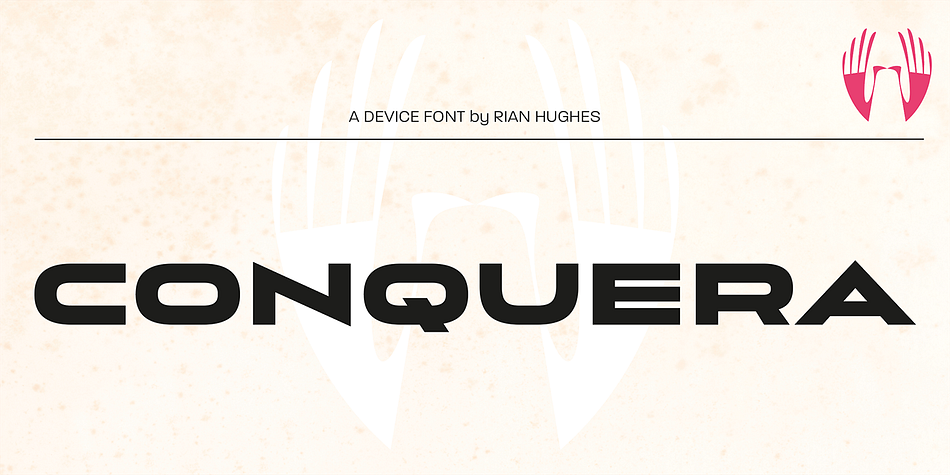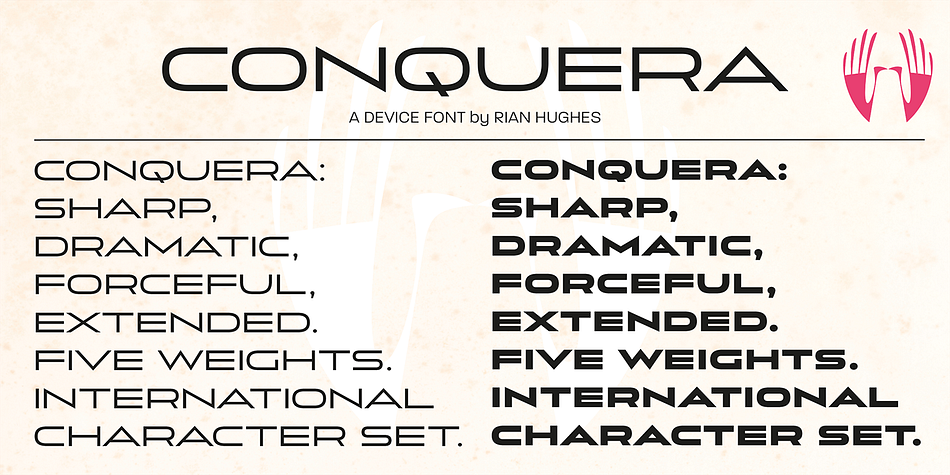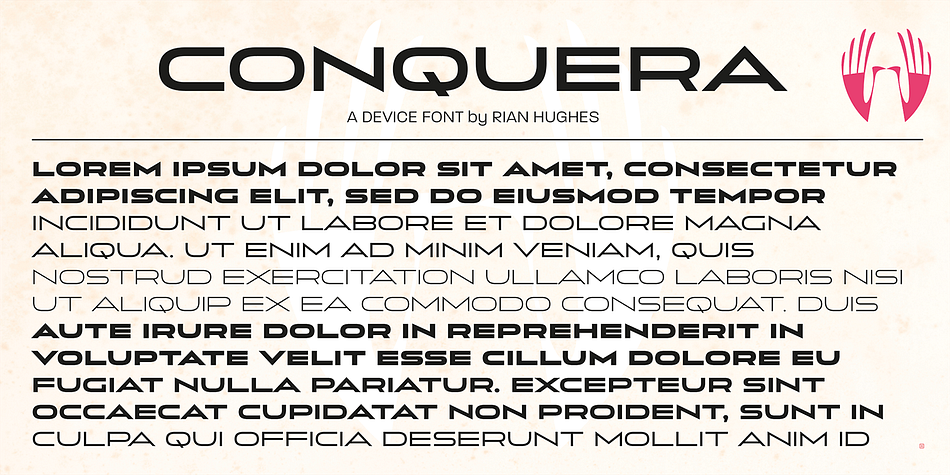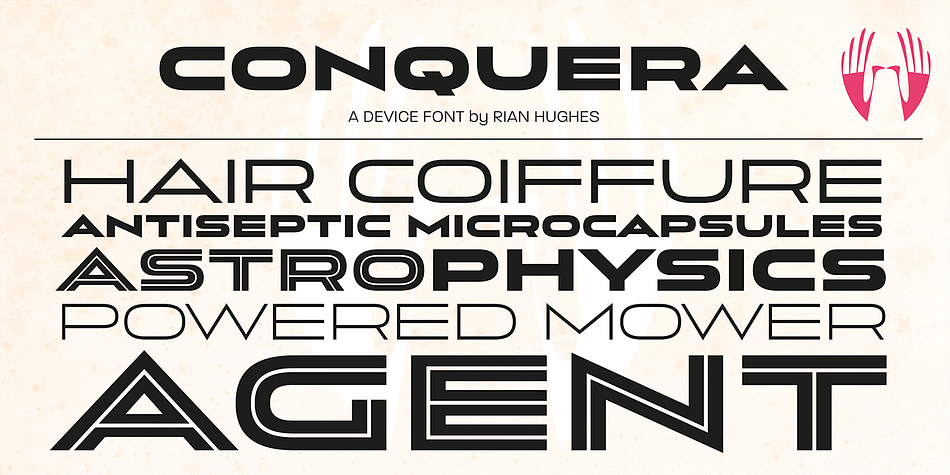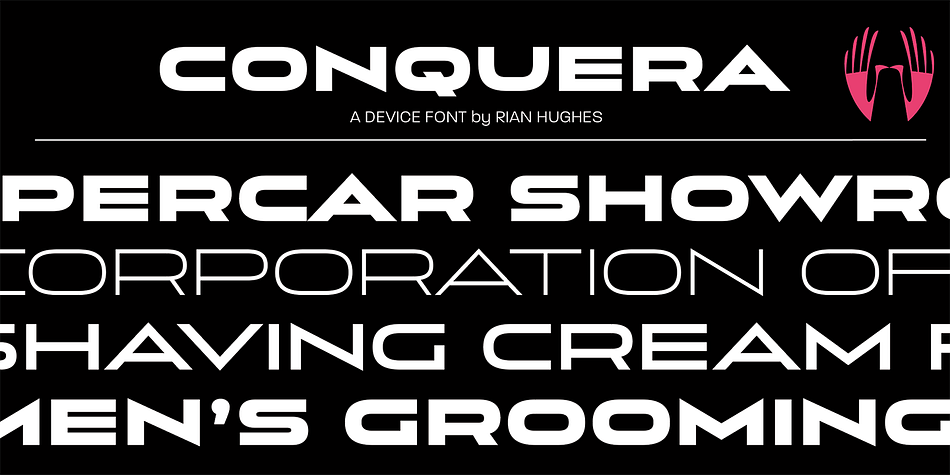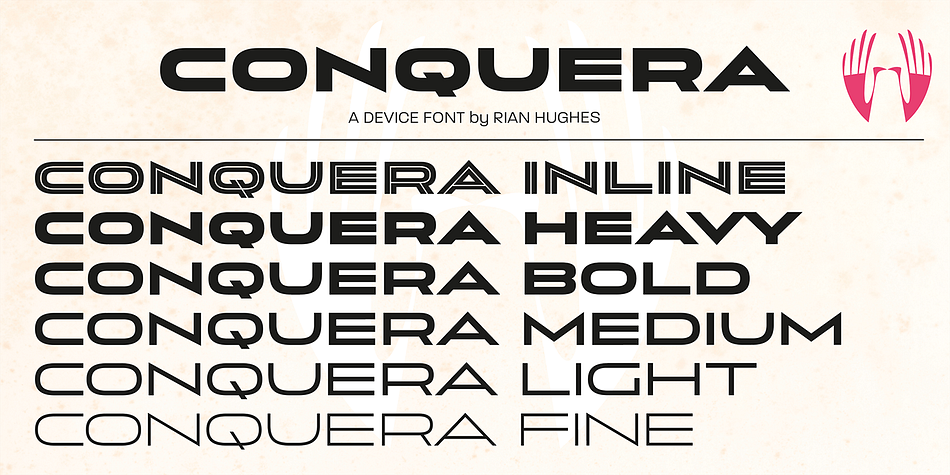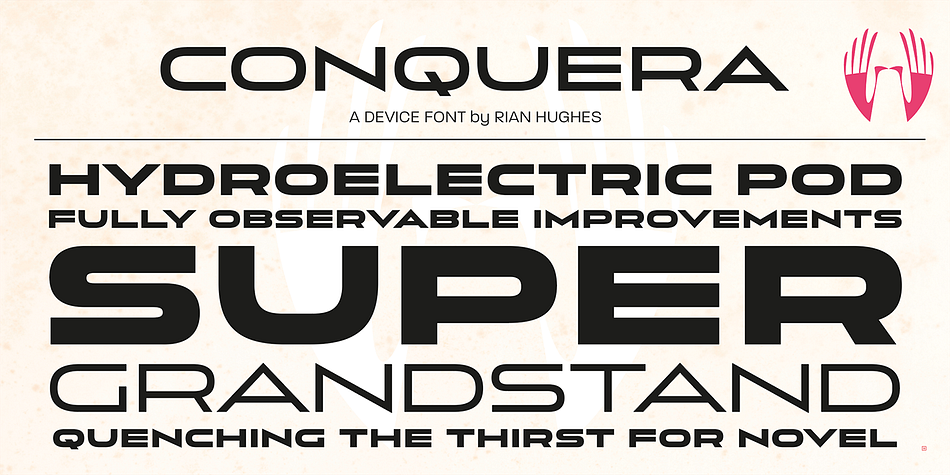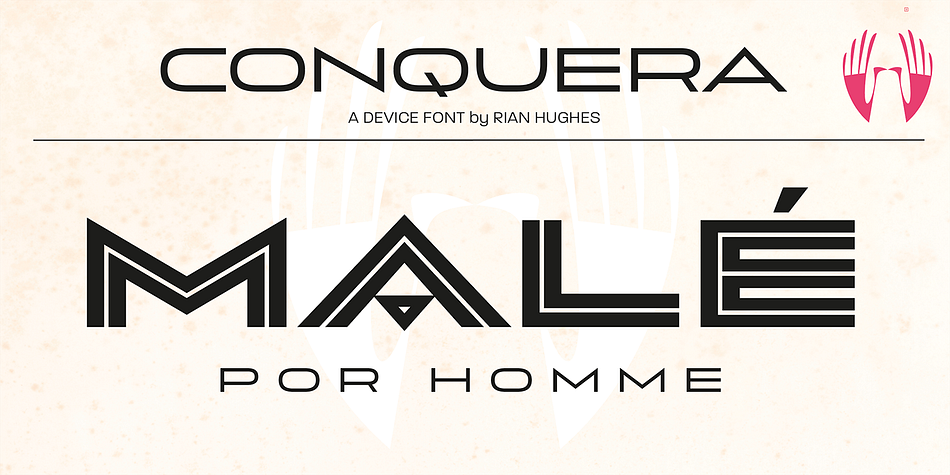
Designed by Rian Hughes, Conquera is a display sans and sans serif font family. This typeface has six styles and was published by Device.
Conquera is an extended caps-only font in five weights plus an inline. It is refined and masculine without being heavy-handed - the angled stokes and pointed vertices lend it a stylish, upmarket Moderne poise. Suitable for man’s grooming products, supercar showroom brochures, high-end developments, space vehicles and home technology. Letterspacing at small sizes adds extra sophistication. Includes an alternative A with a triangular crossbar and full international character set.